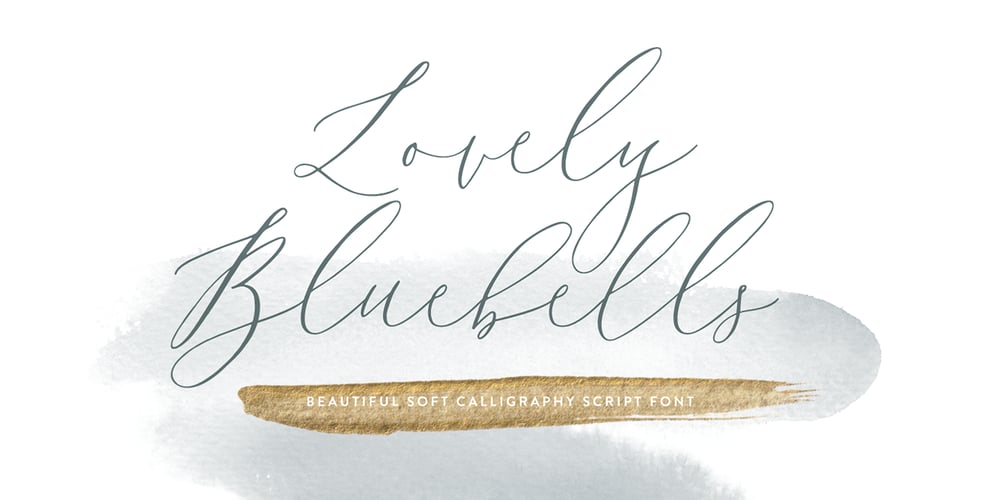
Lovely Bluebells Font Family was designed by Susan Brand and published by Susan Brand Design. Lovely Bluebells contains 1 styles and family package options. Introducing Lovely Bluebells Script font. A totally swoon worthy romantic font. Perfectly suited for a diversity of design projects, including logos, branding, wedding designs and social media posts.Lovely Bluebells include multilingual support for All Western Europe languages, as well as Afrikaans.xx Susan